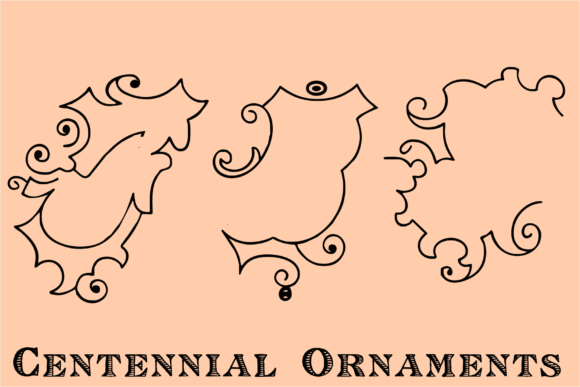
Unlocking the Magic of Centennial Ornaments Font
Have you ever stared at a blank canvas, wondering how to bring your creative vision to life? You’ve poured over design inspiration, searched for the perfect font, and experimented with various layouts, but something’s still missing. That’s where the Centennial Ornaments Font comes in – a treasure trove of decorative designs waiting to elevate your projects.
This dingbat font is more than just a pretty face; it’s a versatile collection of ornaments that can add a touch of elegance to invitations, posters, and any other creative endeavor. With its variety of shapes and patterns, the Centennial Ornaments Font is a valuable asset for designers looking to make their designs stand out. Whether you’re a seasoned pro or just starting out, this font is sure to become a trusted companion in your design journey.
- Unique Characteristics: Ornate, vintage-inspired design with intricate details and ornaments
Designer Review: Centennial Ornaments Font
Overall, I found the Centennial Ornaments font to be a unique and visually appealing choice for festive designs. ✨ It’s perfect for adding a touch of elegance and sophistication to holiday-themed projects. The ornaments and flourishes add a playful and whimsical feel, making it ideal for packaging, greeting cards, and other festive materials.
One of the strengths of the Centennial Ornaments font is its flexibility. ✨ It works well in both digital and print formats, and its high-resolution capabilities make it suitable for use on a variety of materials, from business cards to banners.
However, I did encounter a few limitations. ⚠️ The font’s complexity can make it difficult to read in certain contexts, particularly when used in large blocks of text. Additionally, the ornaments and flourishes can be distracting if not used judiciously.
In terms of overall impression, I would say that the Centennial Ornaments font is a great choice for designers looking to add a touch of holiday magic to their projects. With a little creativity and restraint, it can be a powerful tool for creating visually stunning designs.
- Unique and visually appealing ornaments and flourishes
- Flexible and suitable for both digital and print formats
- High-resolution capabilities for use on a variety of materials
- Can be distracting if not used judiciously
- Difficult to read in certain contexts
Use the Centennial Ornaments Font to add a vintage or nostalgic touch to your designs.
Combine the font with other vintage-inspired elements for a cohesive look.
Vintage-themed marketing materials
Historical or educational projects
Photography captions and descriptions